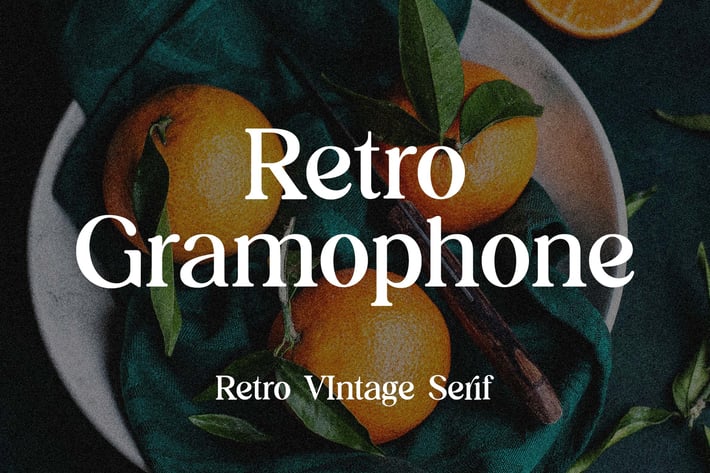
Retro Gramophone Vintage Serif Font
Introducing our new product the name is Retro Gramophone Vintage Serif Font. Retro Gramophone Vintage Serif Font that feels beautiful classy, elegant, and modern. This font is perfectly suited for a wide variety of projects, such as signature, stationery, logo, wedding, typography quotes, magazine or book covers, website headers, clothing, branding, packaging design, and more. Also, fashion-related branding or editorial design displays both masculine and feminine qualities.